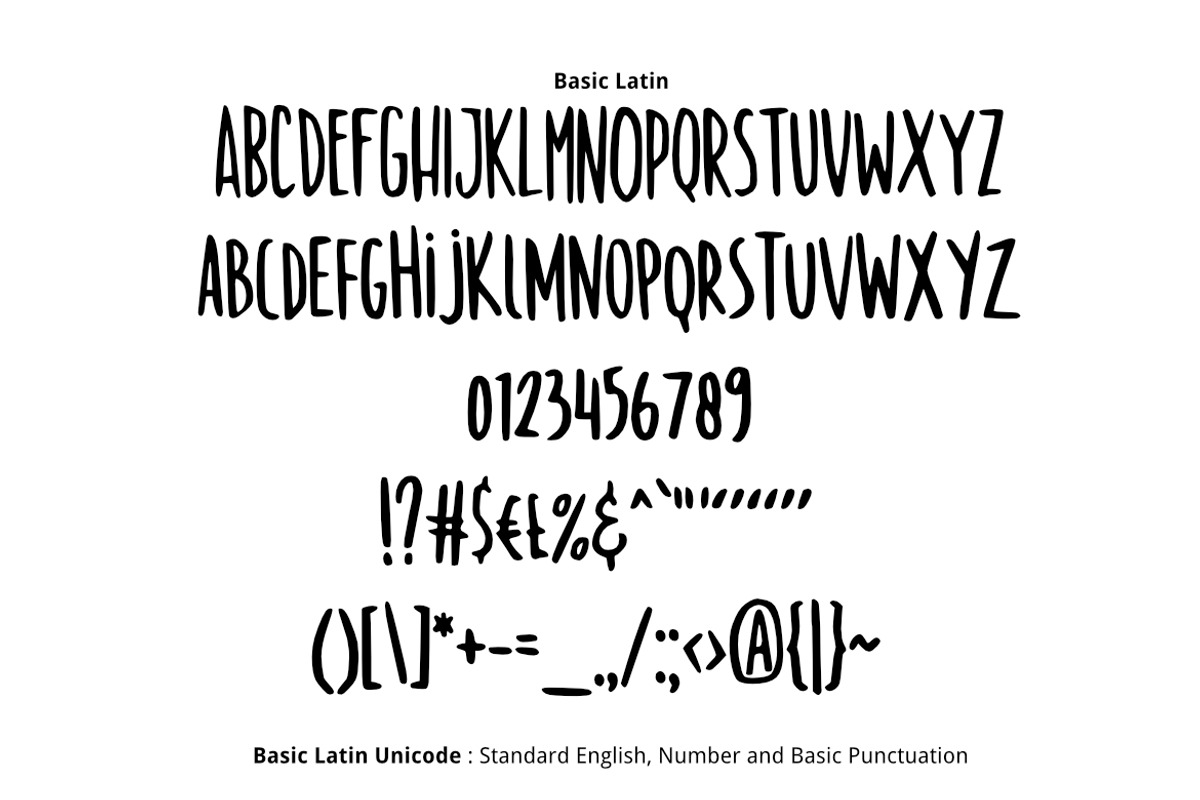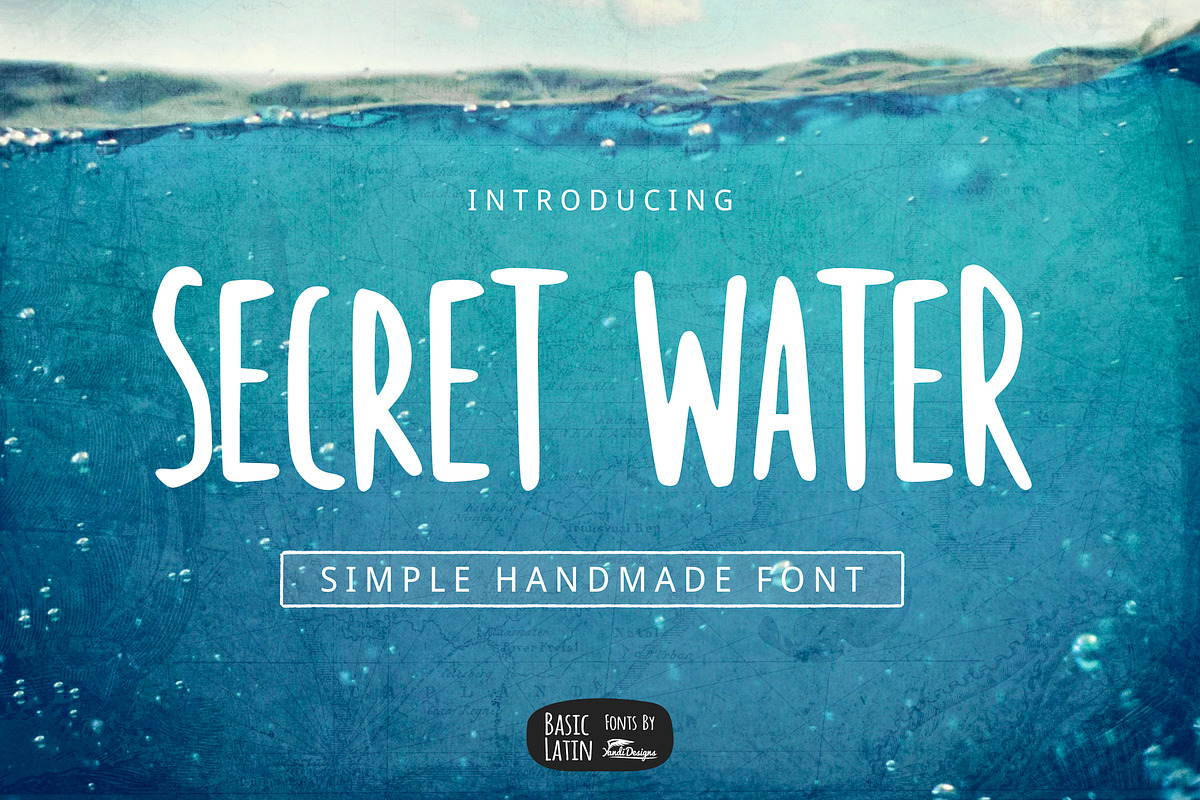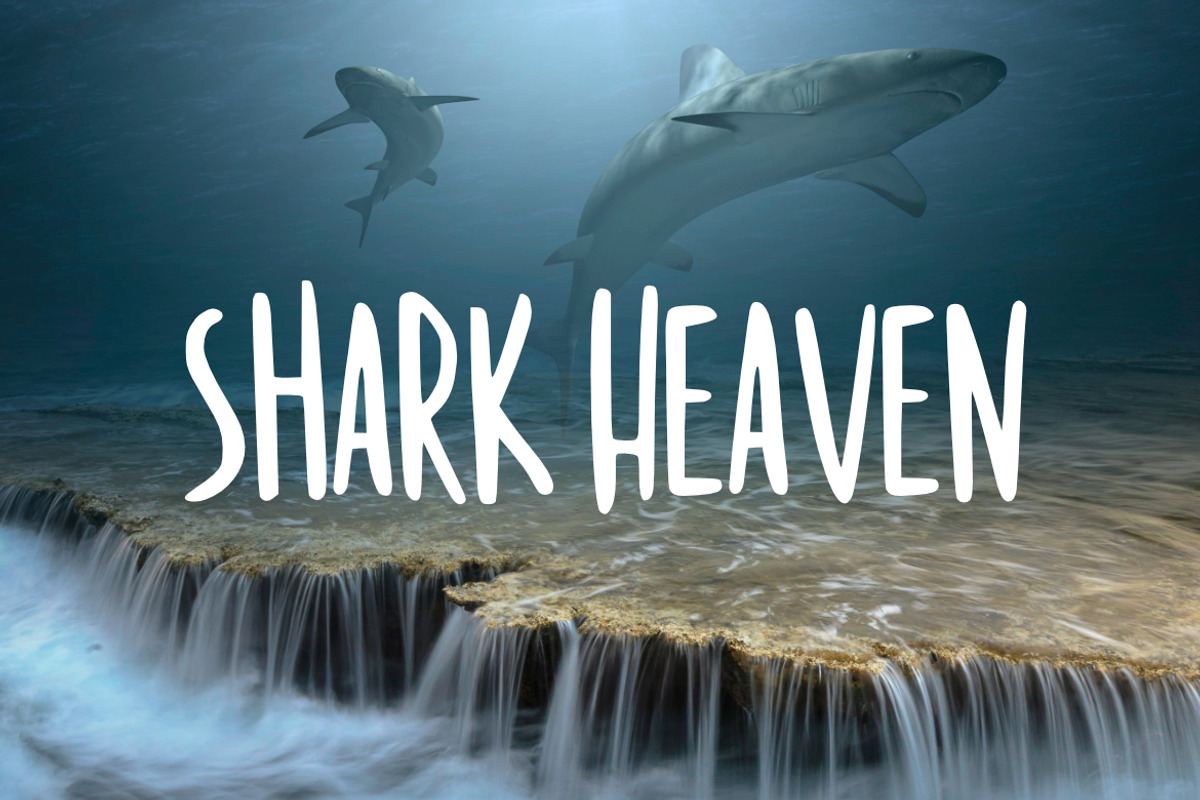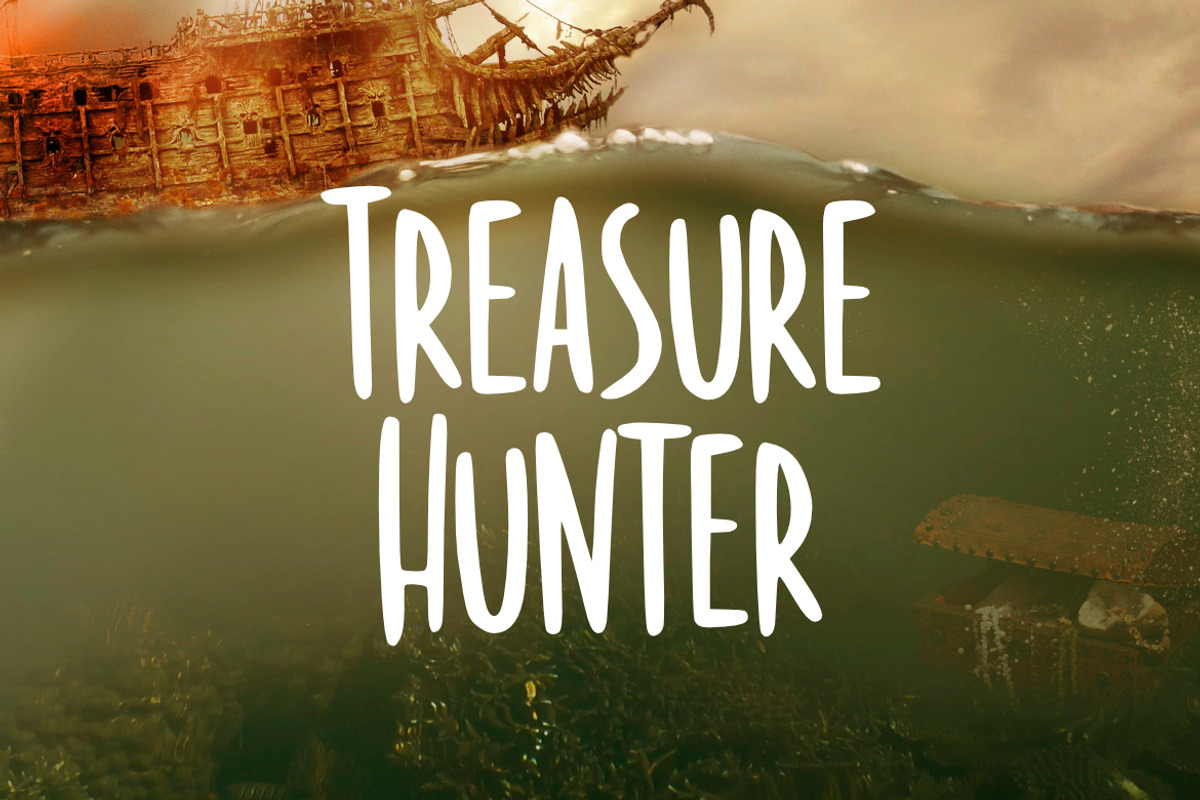
Secret Water Simple Font
Secret Water is simple handmade multipurpose font , suitable for many project children book, quotes, logo , heading , title etc.
Secret Water Simple Font by YandiDesigns fits naturally into Branding, posters, packaging, typography.